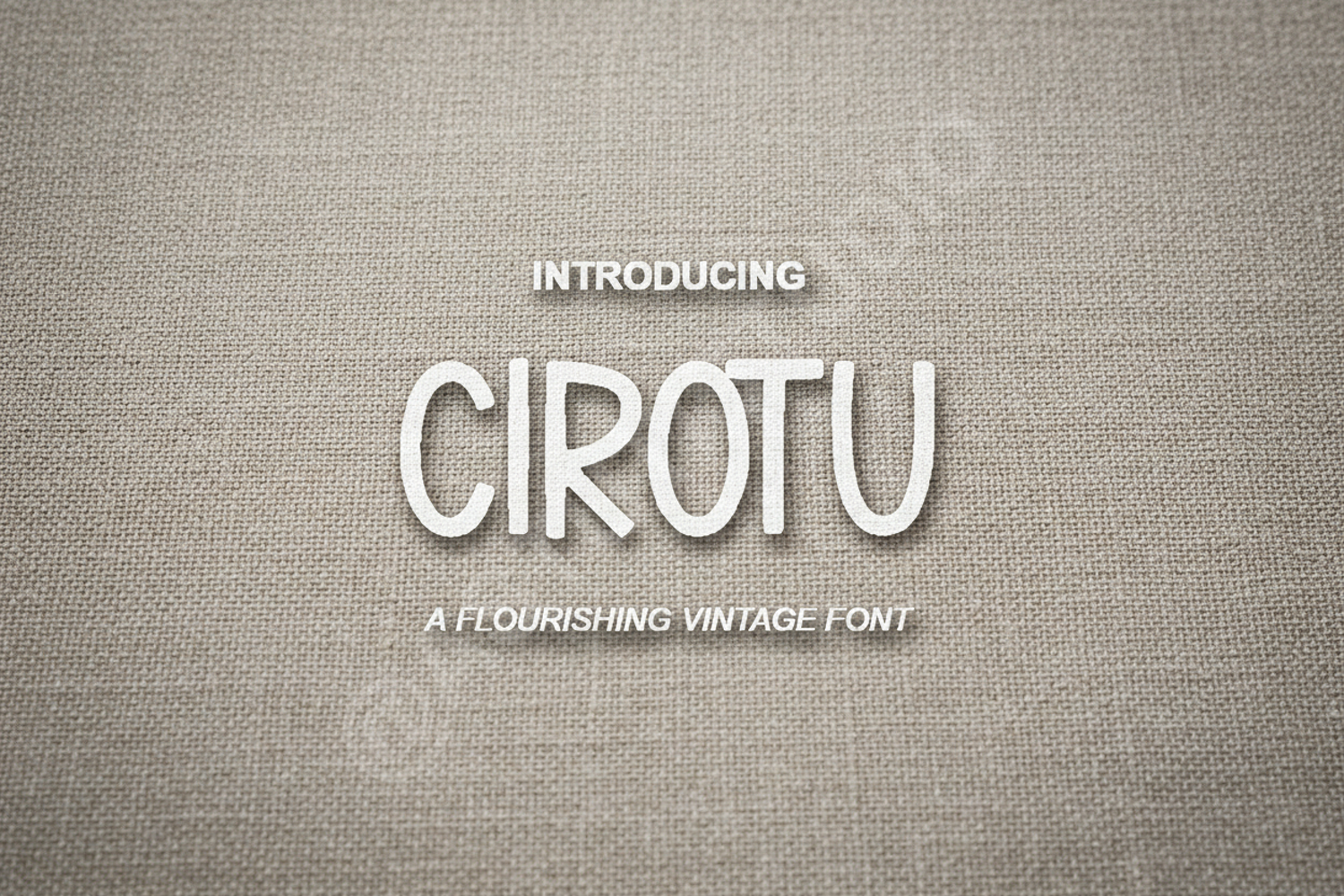
Cirotu - Modern Minimalist Serif Typeface
Cirotu
Elevate your creative projects with Cirotu, a premium serif font that embodies modern elegance and timeless sophistication. Designed with clean lines and a perfectly balanced weight, Cirotu offers a professional aesthetic that is both versatile and high-end. Whether you are working on a luxury brand identity or a minimalist editorial layout, this font provides the perfect touch of class to any design.
- Full set of uppercase and lowercase characters
- Comprehensive numerals and punctuation
- Multilingual support for global design reach
Ideal Use Cases
- Luxury Branding and Identity: Create a memorable and prestigious brand presence.
- Wedding Invitations and Stationery: Add a touch of refined grace to special occasions.
- Editorial and Magazine Design: Perfect for headlines that require clarity and style.
- Logo Design: Build strong, recognizable logos with a modern serif feel.
- Social Media Graphics: Stand out with clean, professional typography for your digital content.